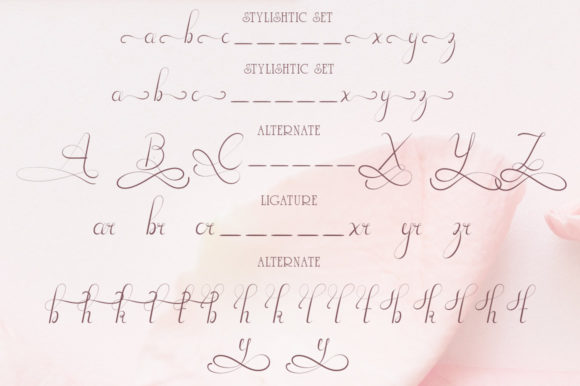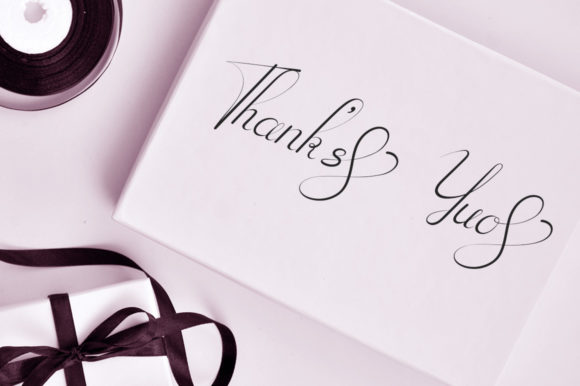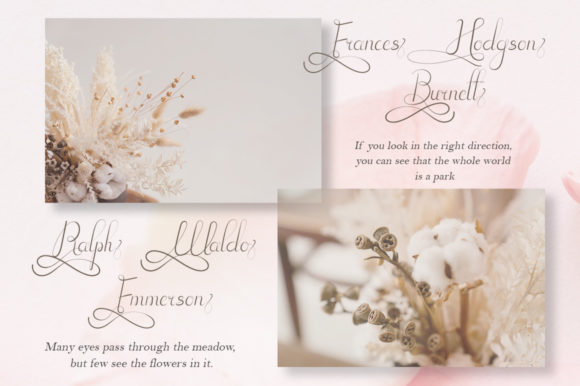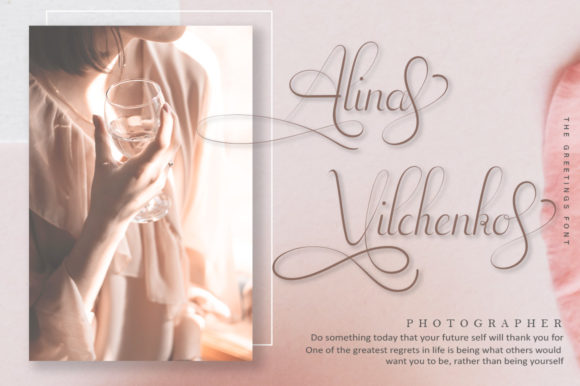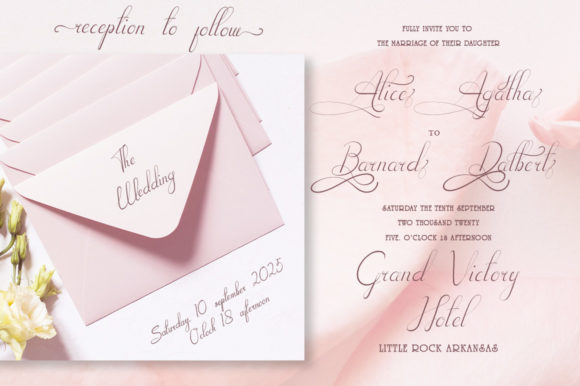
About The Greetings Font
The Greetings is a distinct, thin and enchanting handwritten font. This font is PUA encoded which means you can access all of the glyphs and swashes with ease!
Fall in love with its timeless style and use it to create spectacular designs!